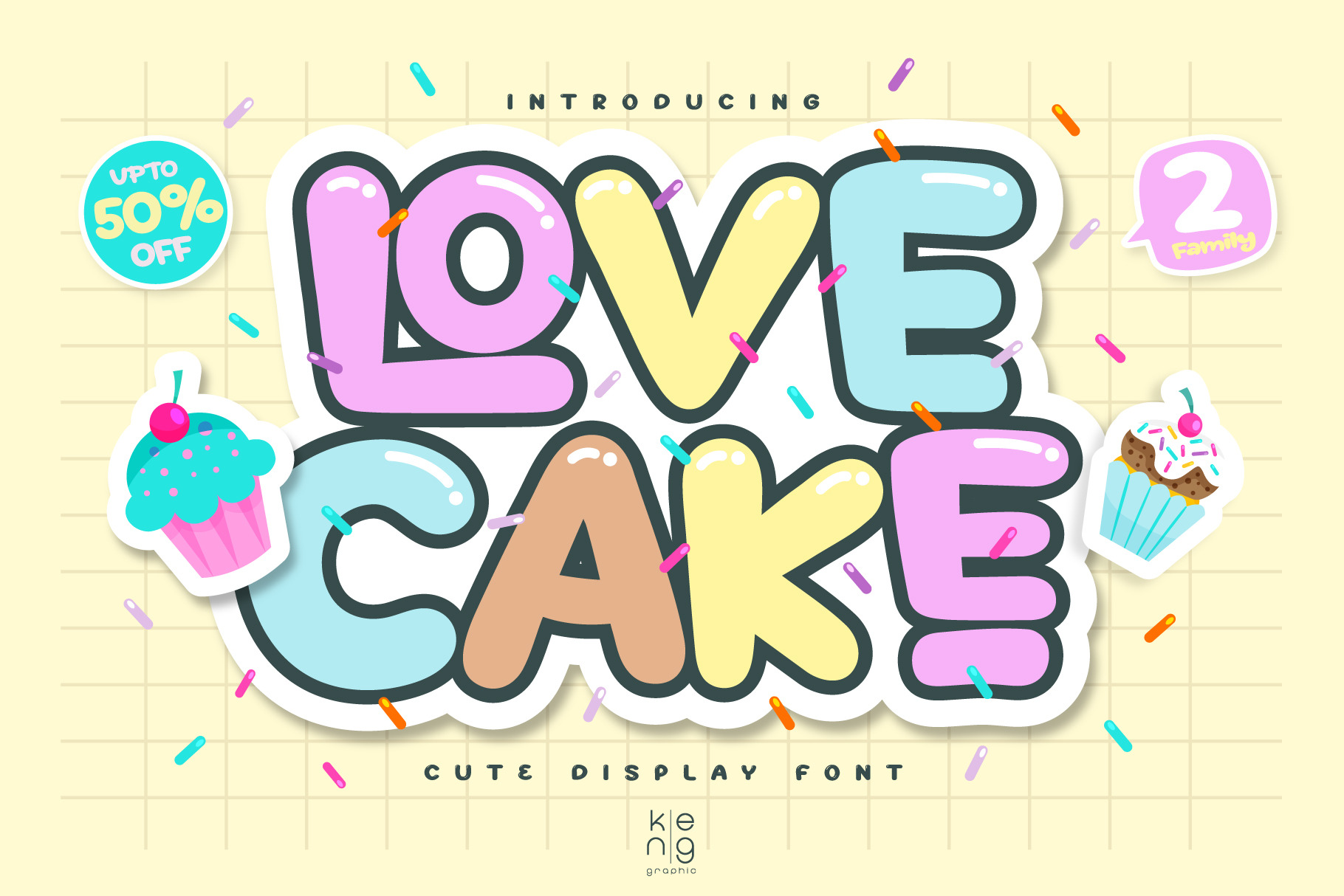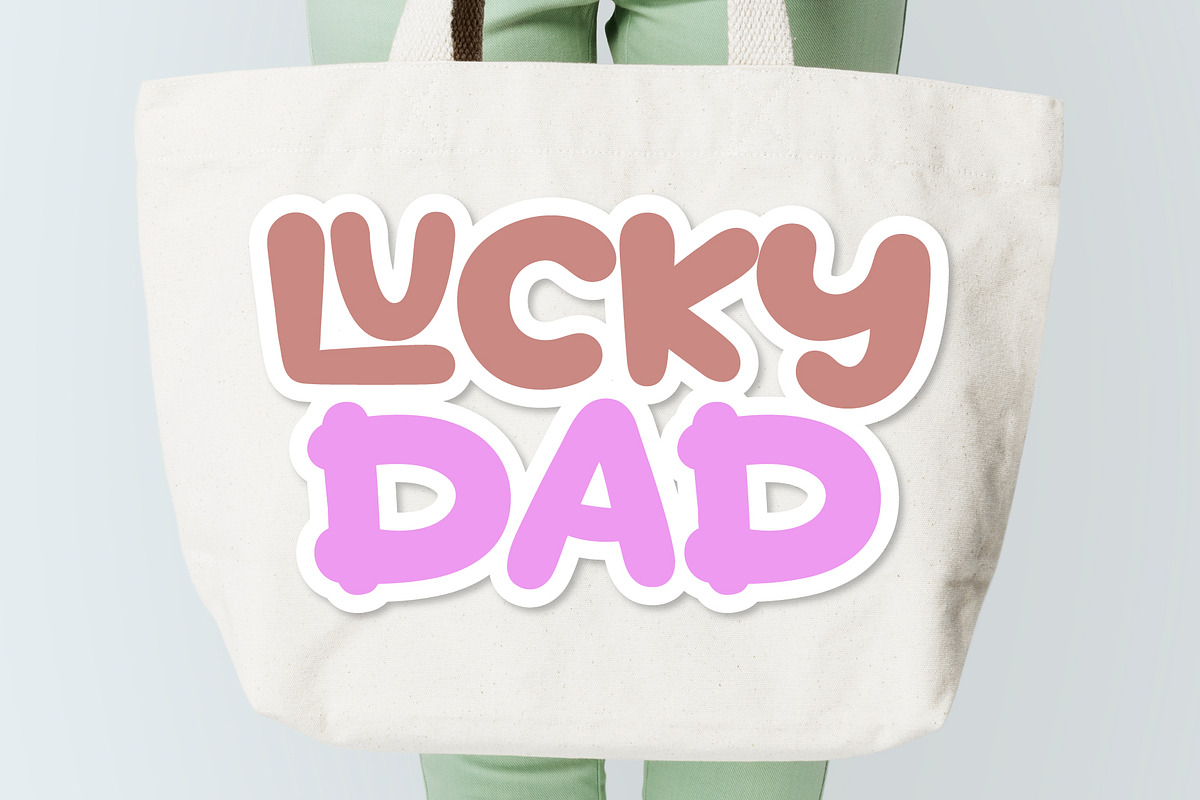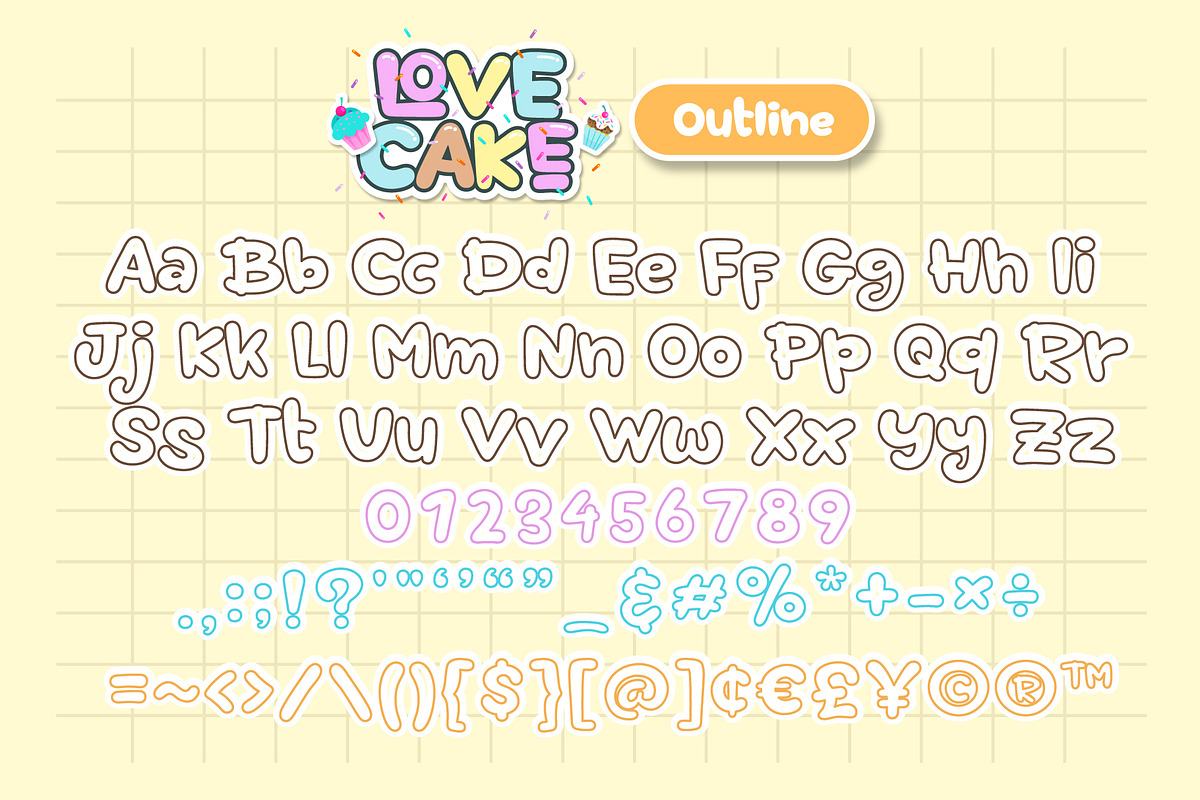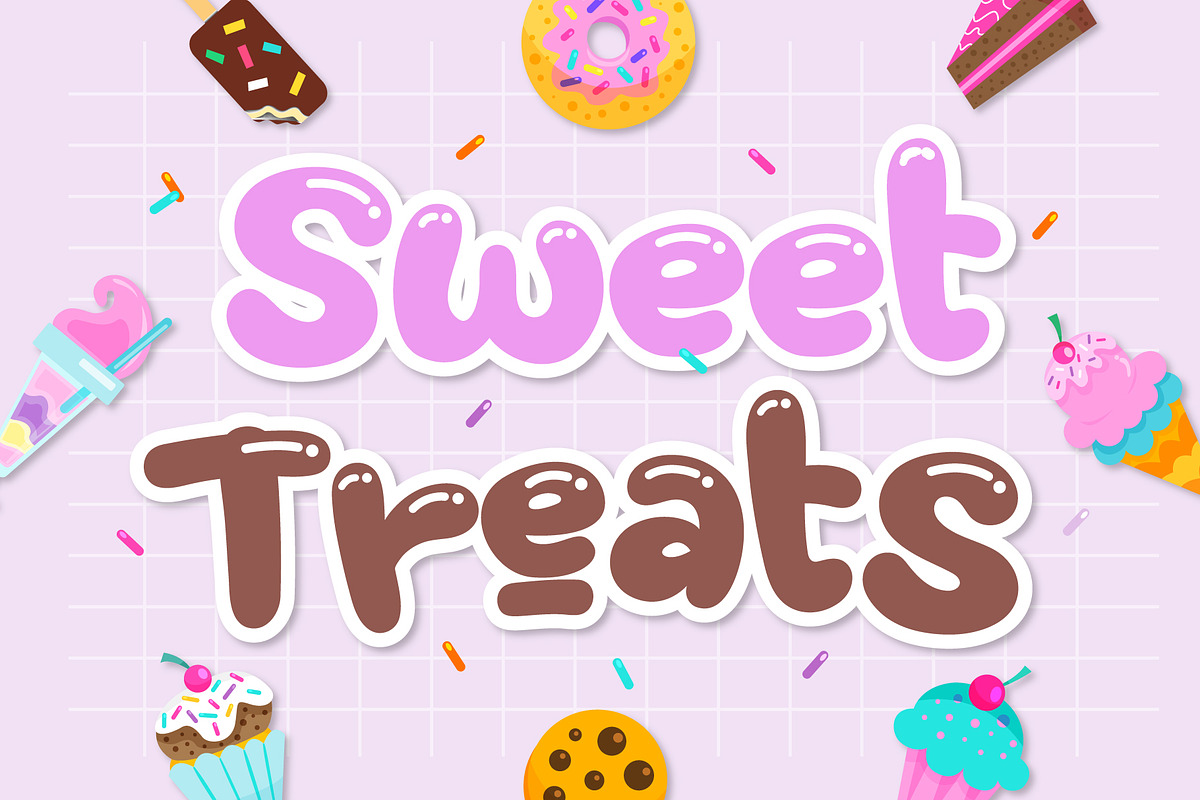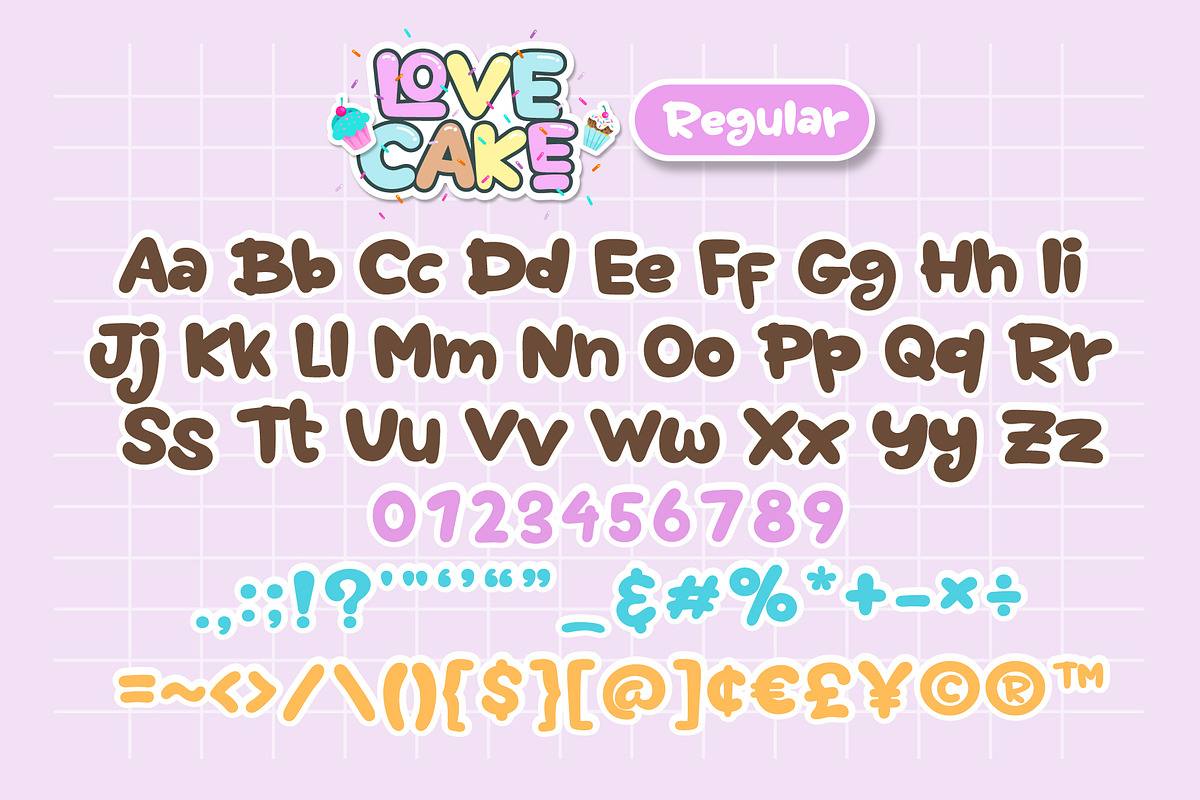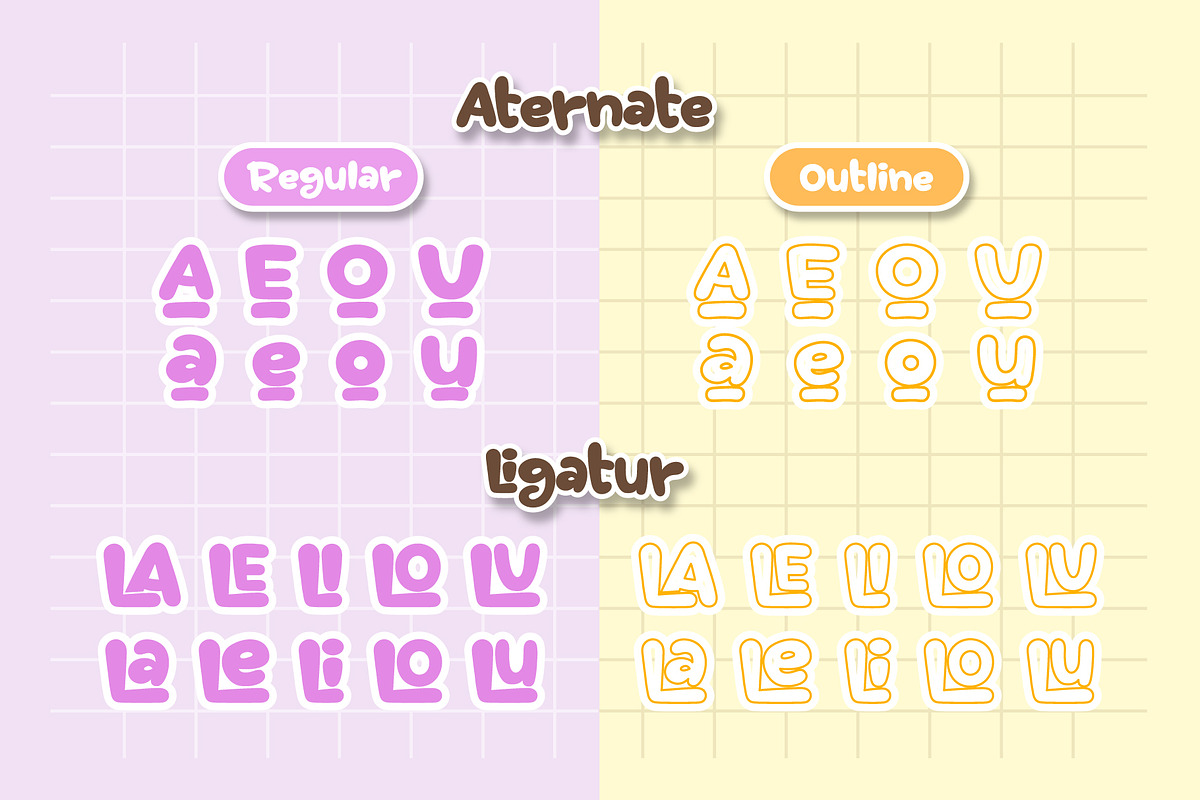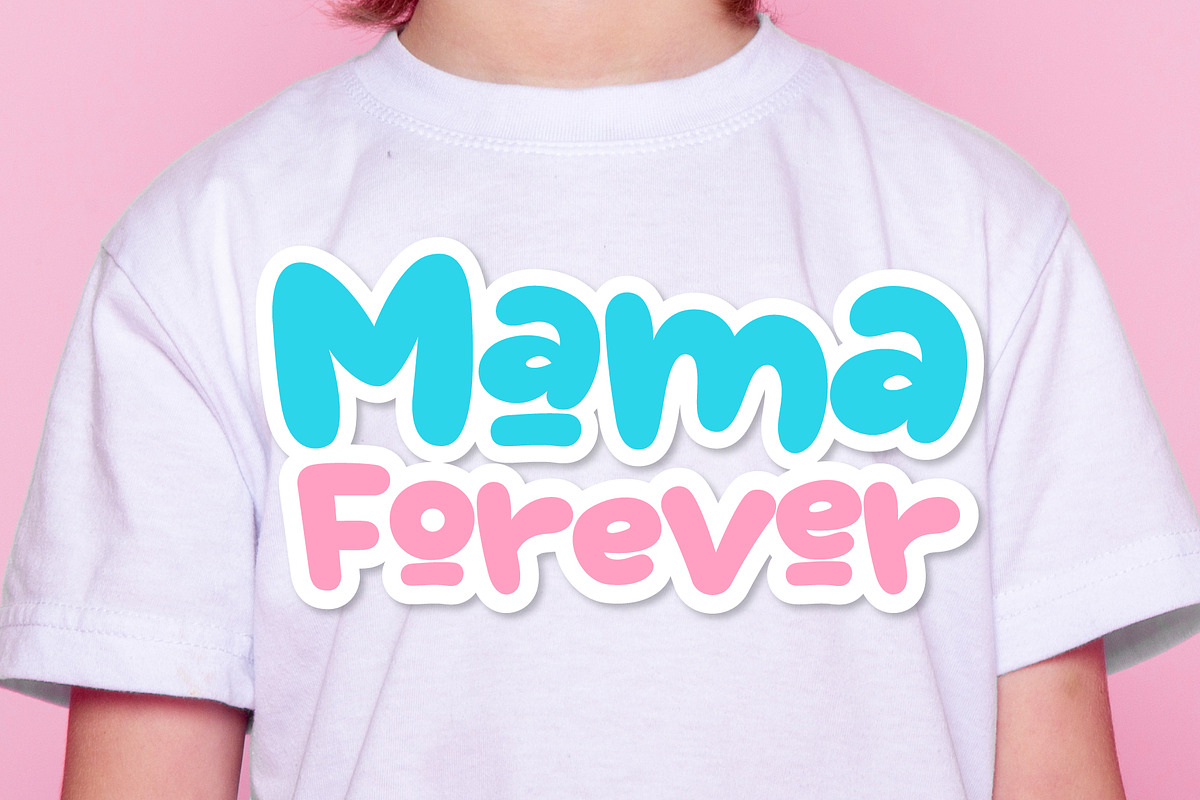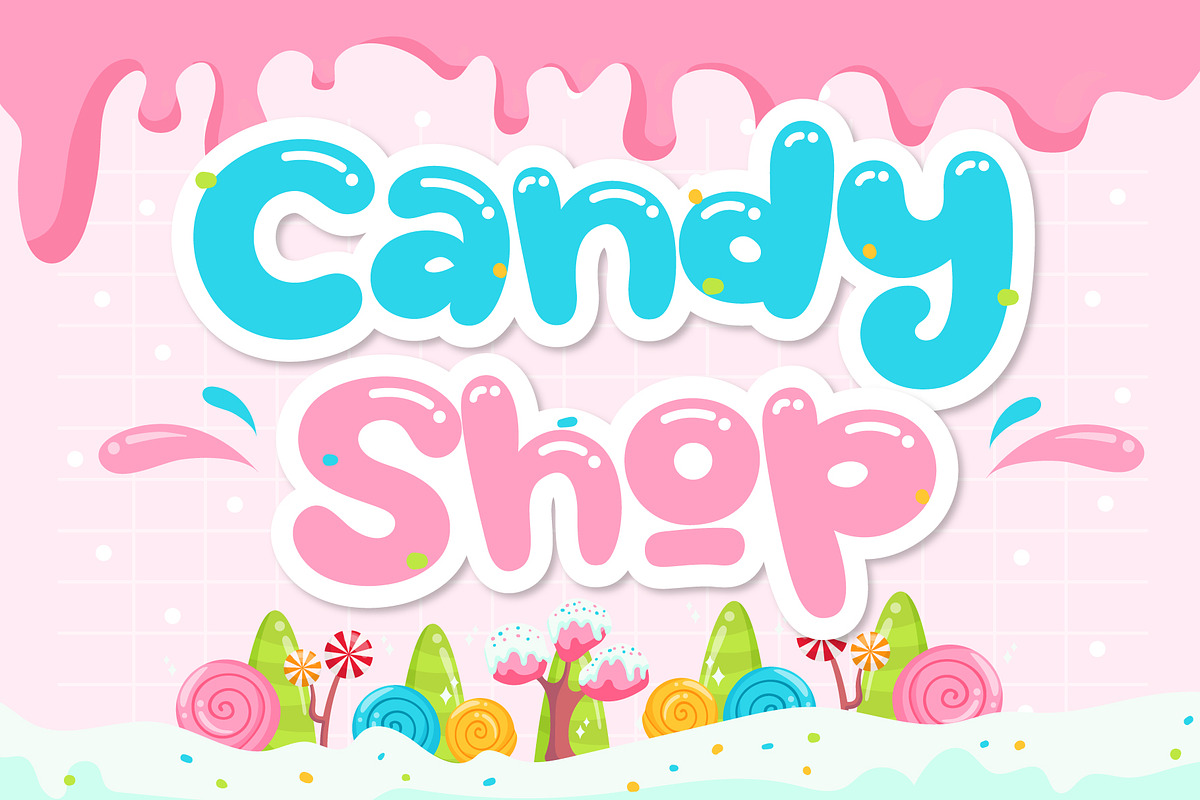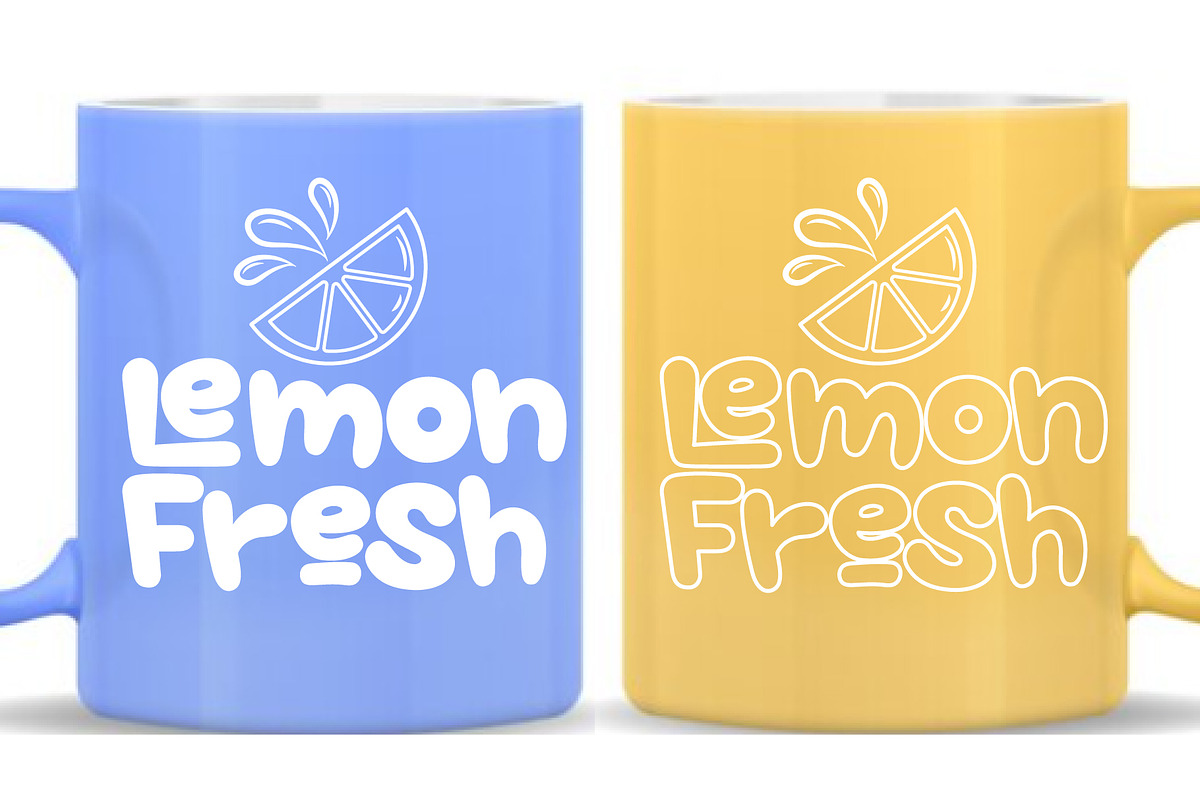
Love Cake Font
Love Cake is a fun and unique display font. Anything written in this font will be instantly recognizable and will grab attention. It will work great for comic book layouts, online games, cards, shirts, hats, bags, mugs, posters, food menus, movie titles, eye-catching social media posts, or anything that requires youthfulness and courage.